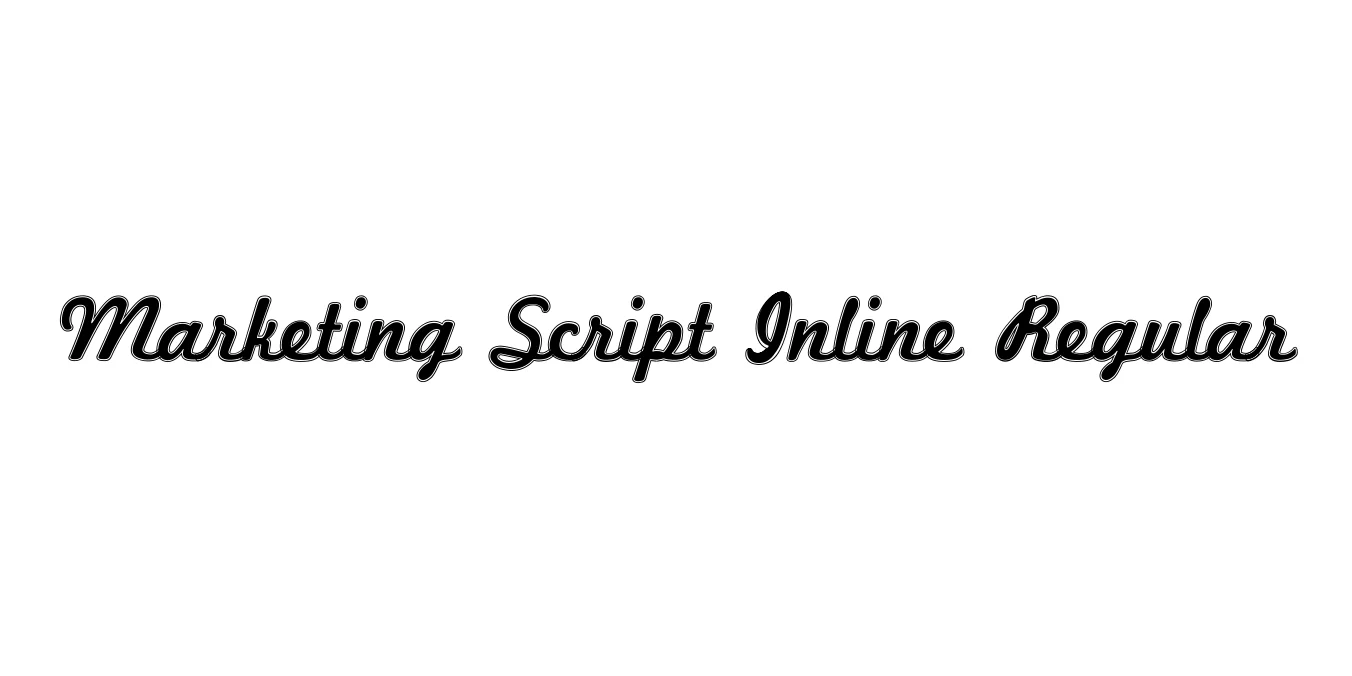
Marketing Script Inline Regular
Designed by Dieter Steffmann
Marketing Script Inline Regular is a classic script typeface created by German typographer Dieter Steffmann. It is a decorative variant of his popular Marketing Script family, characterized by its elegant, fluid strokes and a distinctive white line running through the center of each character. This inline feature provides a lighter, more airier feel compared to the solid versions, making it ideal for high-end branding and vintage-inspired designs.
Originally released in the late 1990s as part of Steffmann's extensive collection of digitized historical and decorative fonts, this typeface draws inspiration from mid-20th-century advertising and signage. Its formal yet approachable cursive style makes it a staple for designers looking to evoke a sense of nostalgia and professional craftsmanship. The font is widely recognized for its high legibility despite its ornate details.
Marketing Script Inline Regular Best Uses
Perfect for creating sophisticated and memorable brand identities with a retro touch.
Ideal for luxury or artisanal product labels that require a vintage aesthetic.
Works exceptionally well for eye-catching titles in posters, magazines, and invitations.
Great for stylized quotes and elegant promotional graphics.